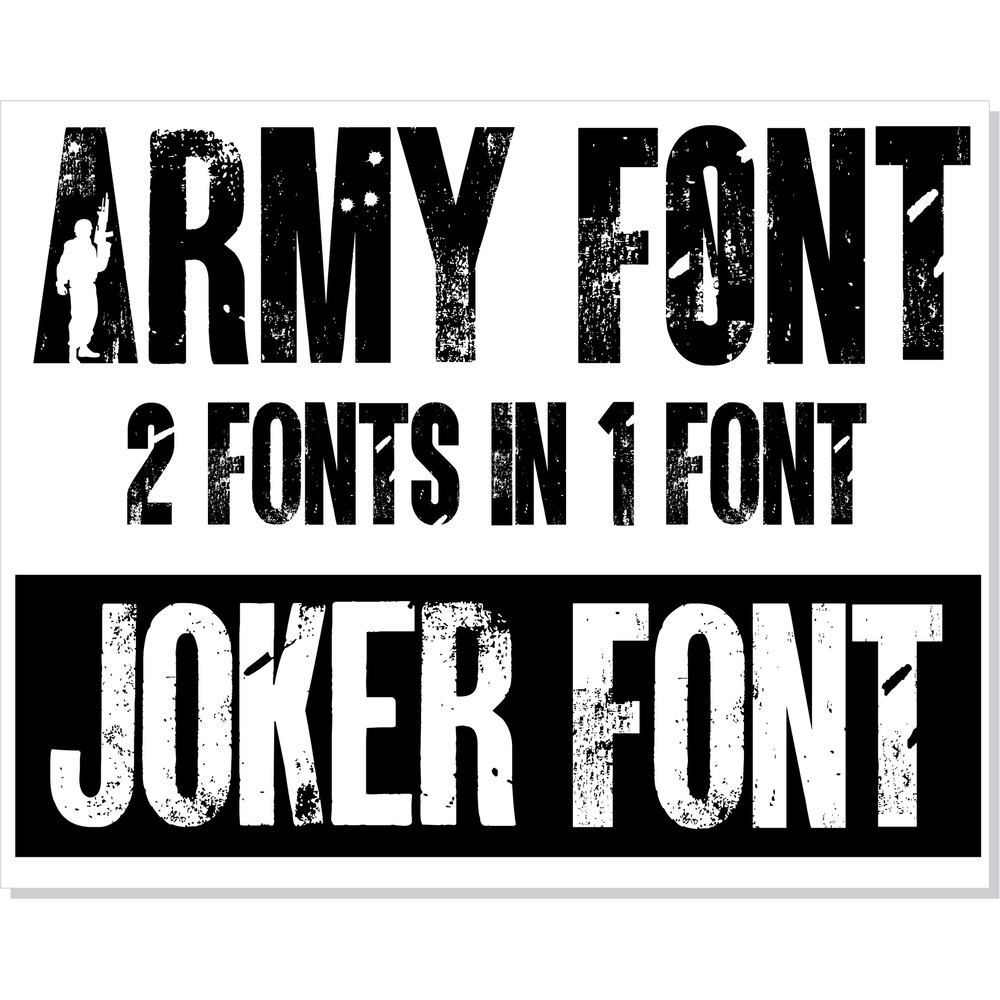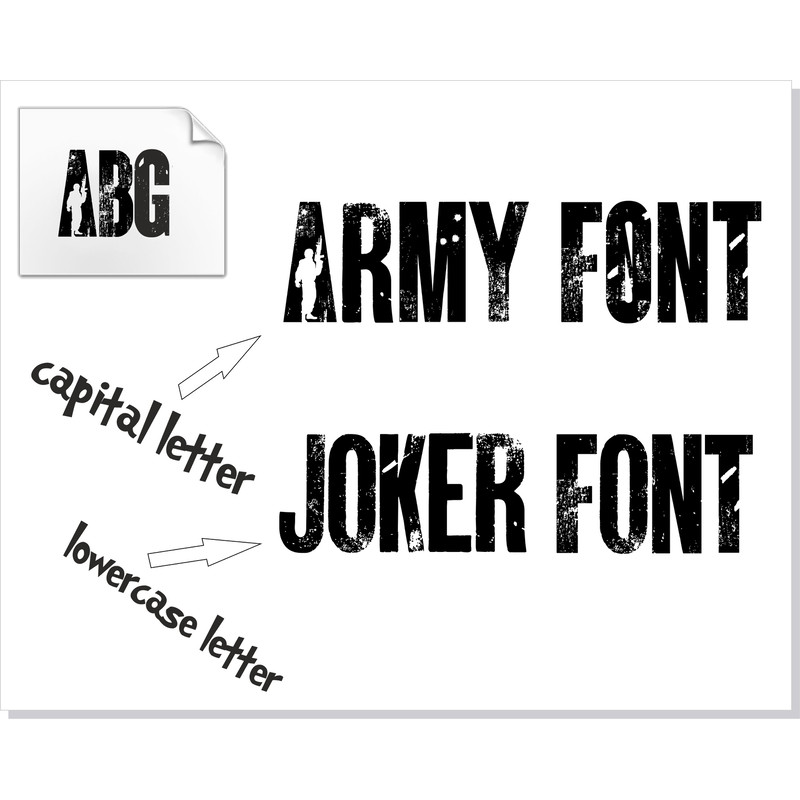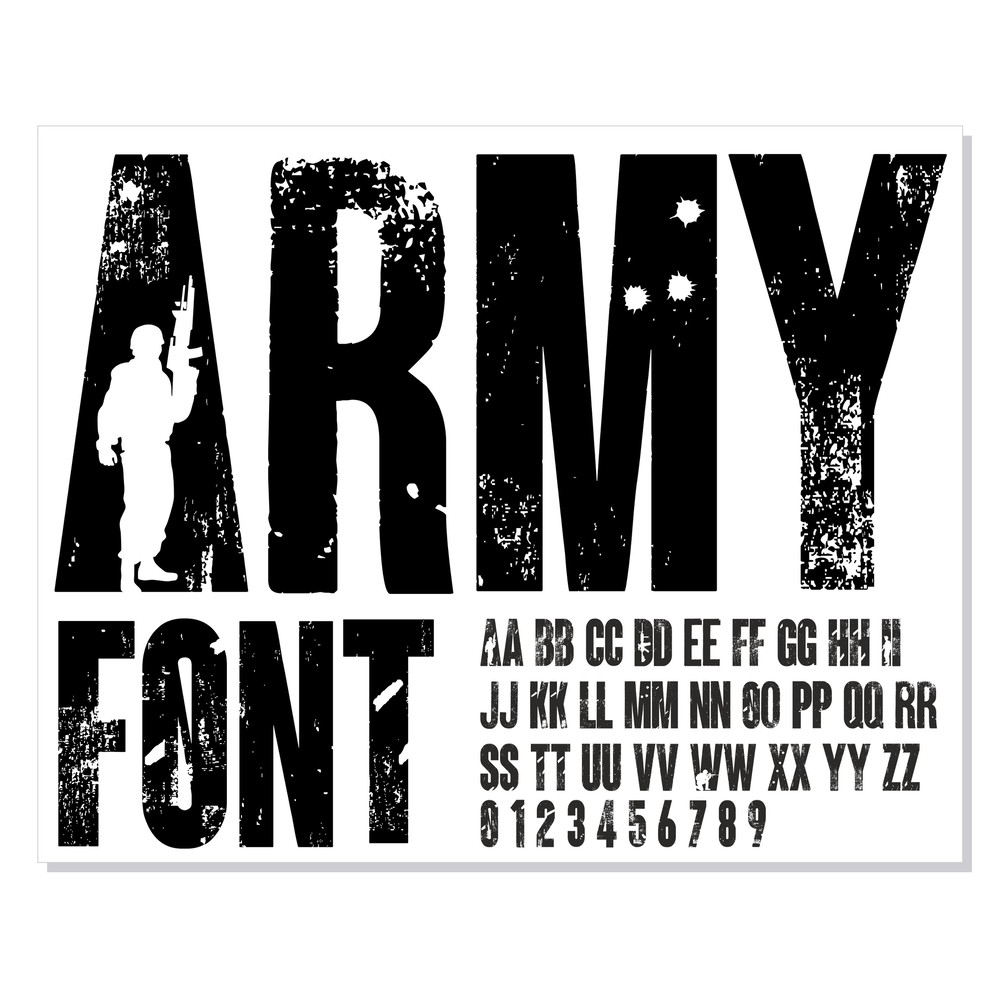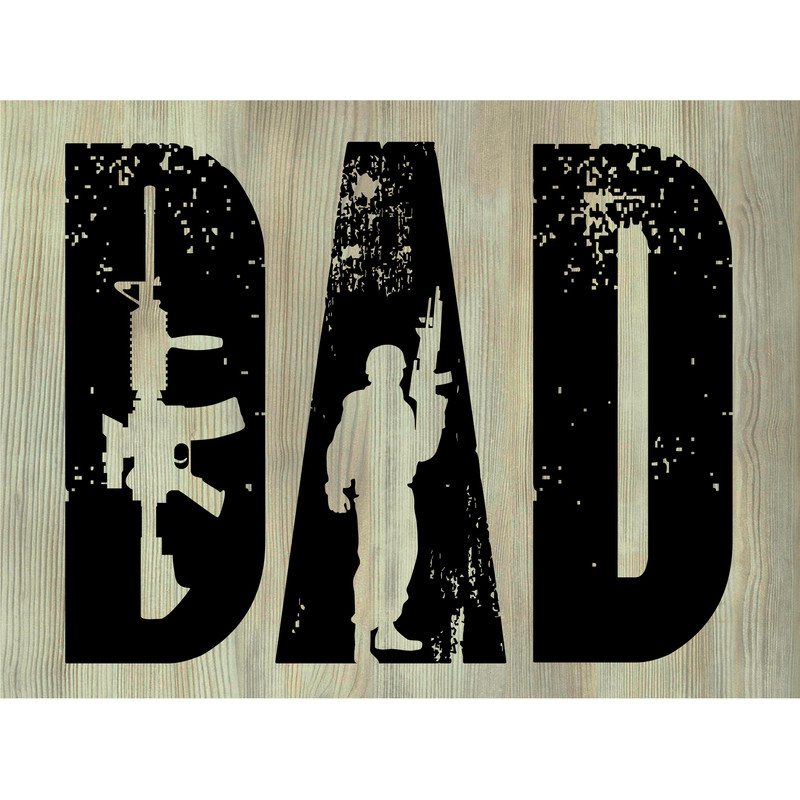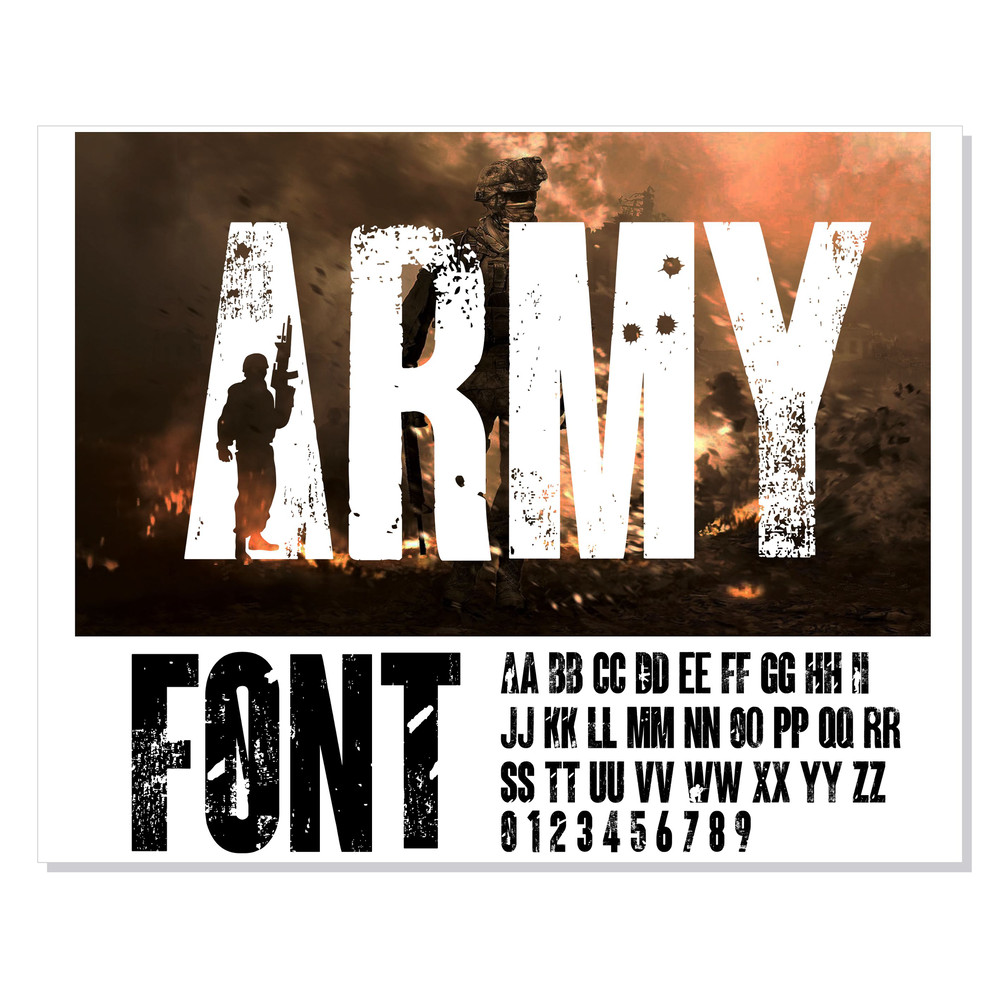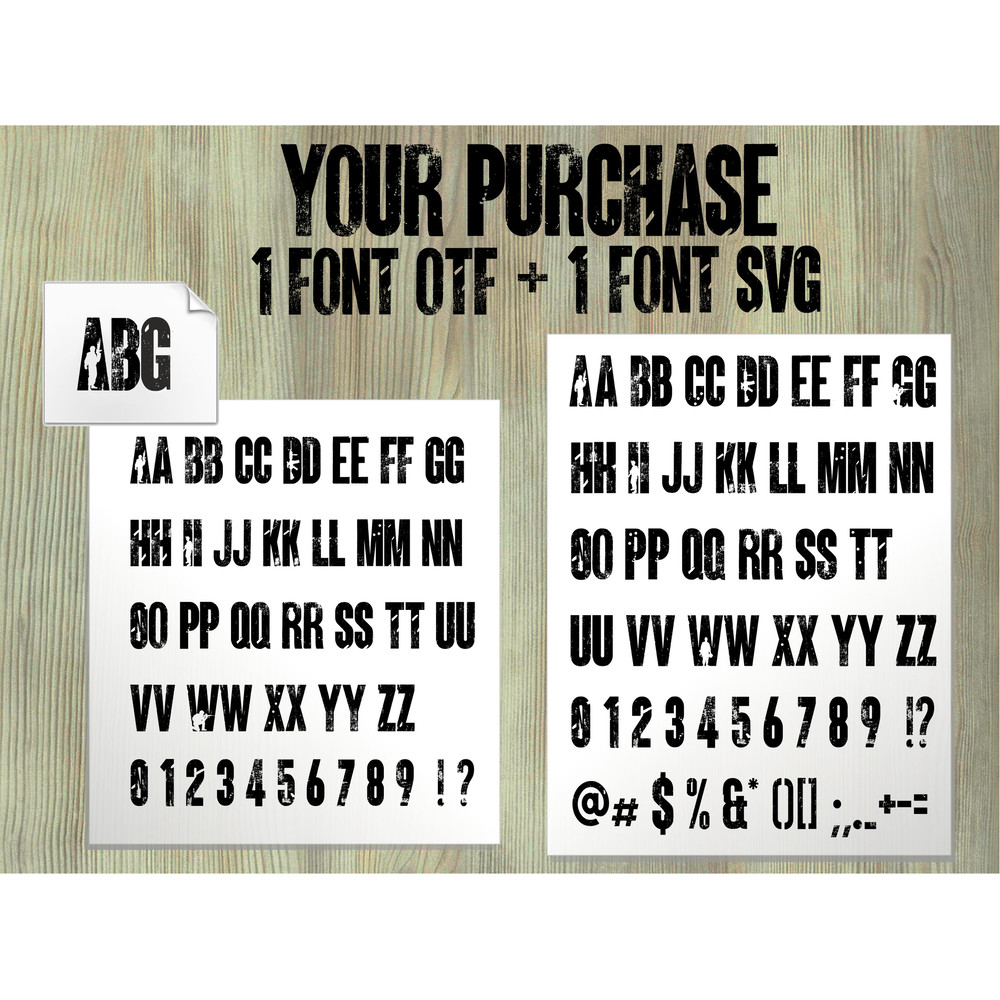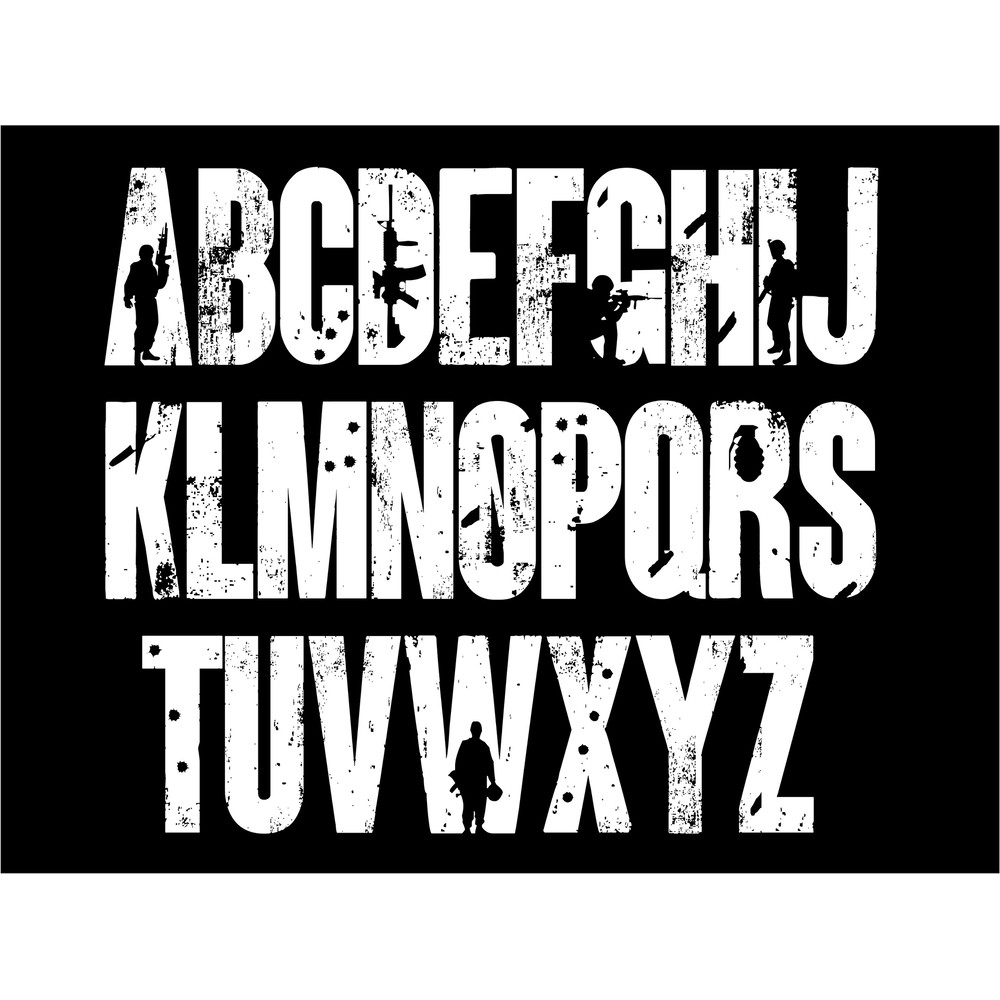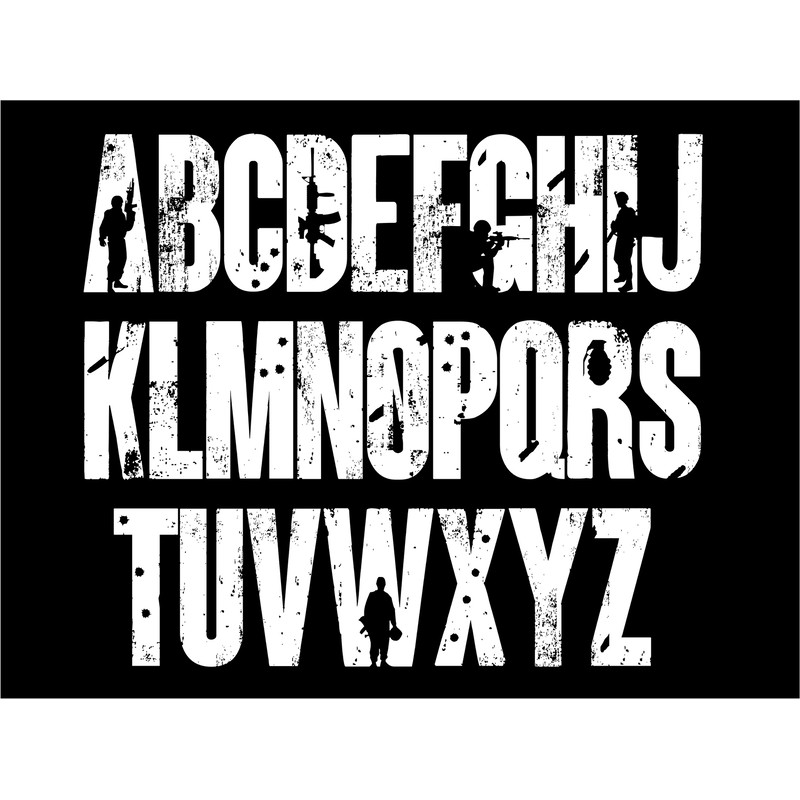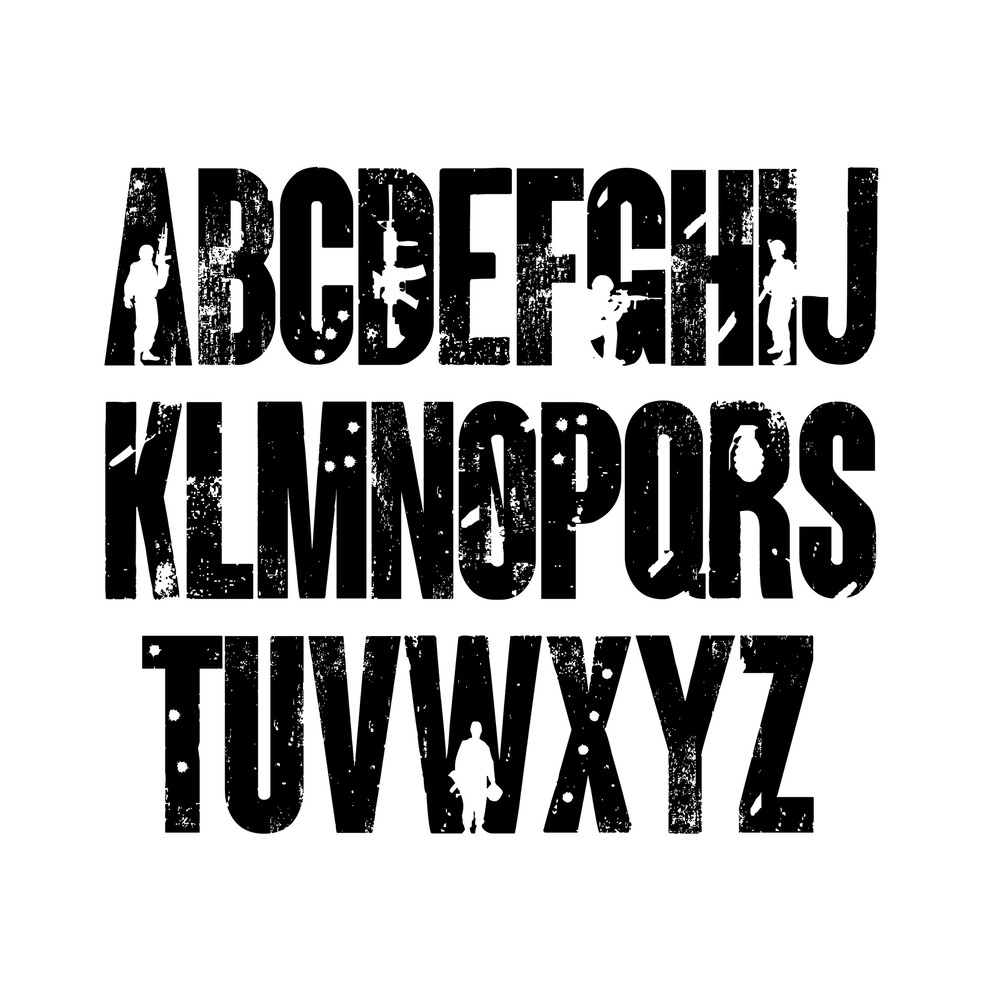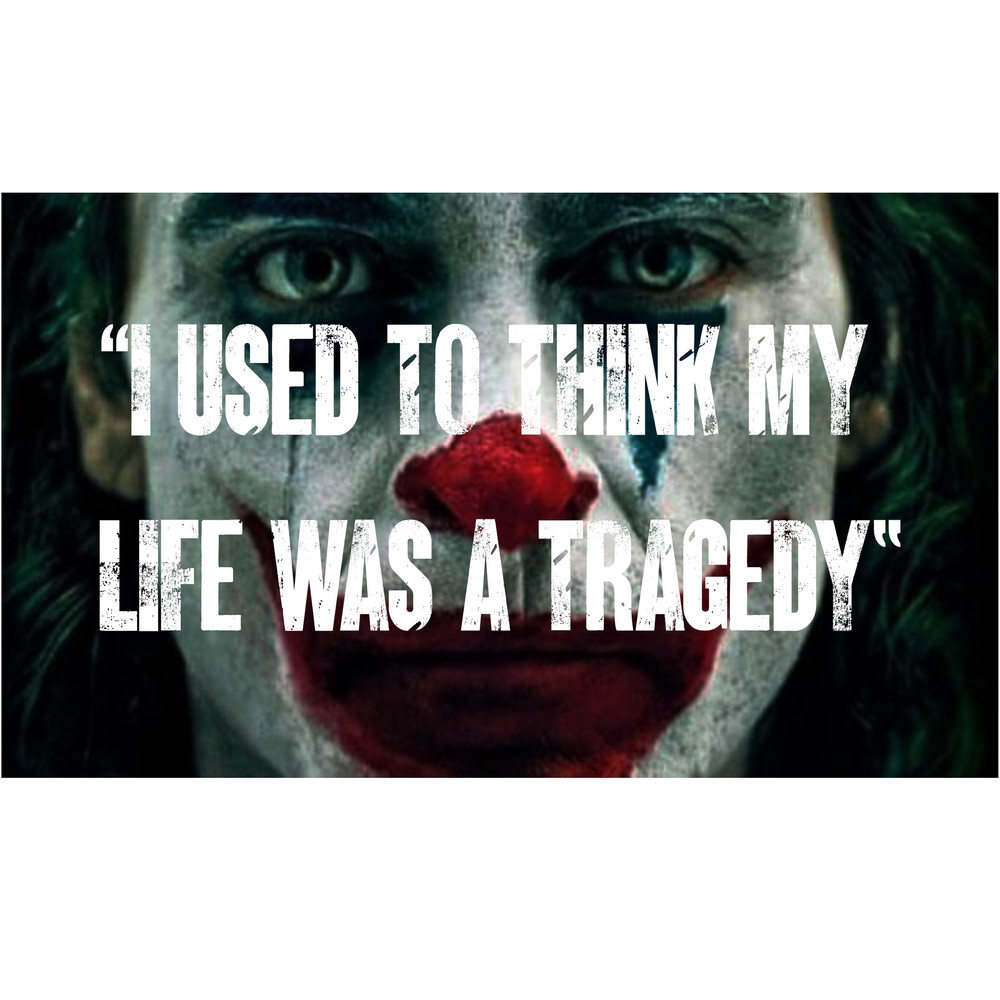
Army font and Joker font in one font / open type font & letters and numbers svg / Distressed Font
Army font includes all the letters and numbers of the Joker font, as well as some uppercase letters on an army theme.